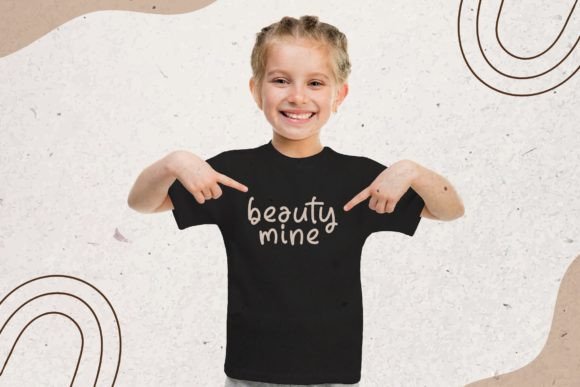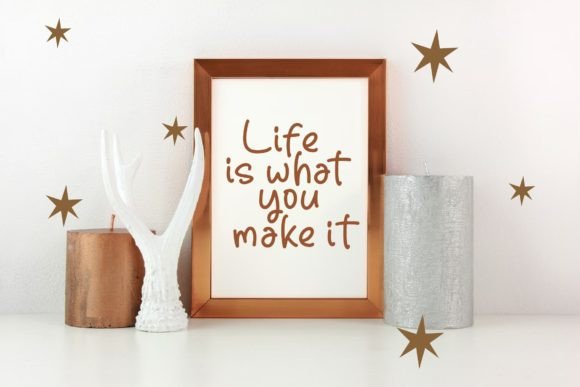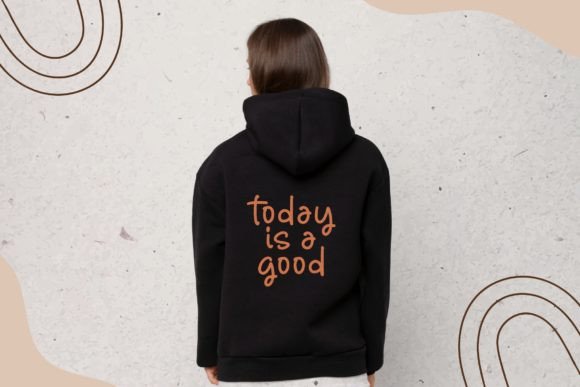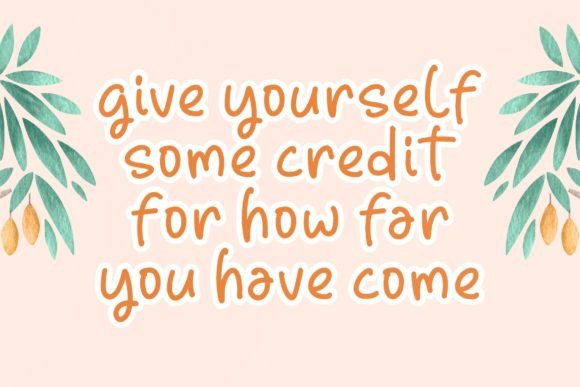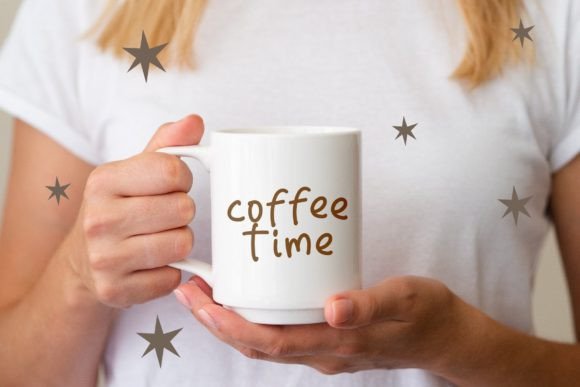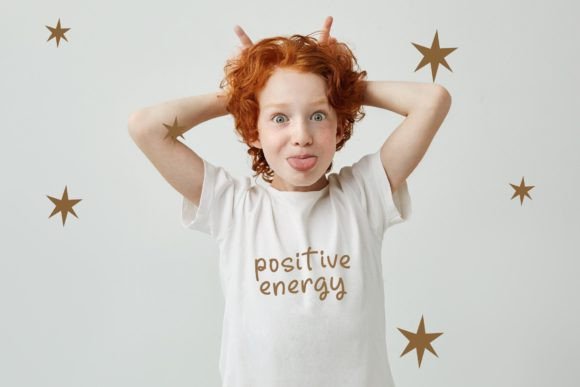
Fruits Mango Font: The Perfect Addition to Your Design Projects
Are you looking for a font that can add a touch of elegance and playfulness to your design projects? Look no further than Fruits Mango Font! This fun handwritten font is suitable for a wide range of projects, from logos and branding to homeware designs, product packaging, and more.
What is Fruits Mango Font?
Fruits Mango Font is a beautiful script font that is perfect for designers and crafters who want to add a personal touch to their work. The font is hand-drawn, giving it a unique and organic feel that is sure to capture the attention of your audience. With its elegant and flowing lines, Fruits Mango Font is ideal for projects that require a touch of sophistication and whimsy.
What Can I Use Fruits Mango Font For?
Fruits Mango Font is a versatile font that can be used for a wide range of projects, including:
- Logos and branding projects: Create a memorable and eye-catching logo for your business or brand with Fruits Mango Font.
- Homeware designs: Add a touch of elegance to your homeware designs, such as kitchen utensils, ceramics, and textiles.
- Product packaging: Make your product stand out on store shelves with beautiful and eye-catching packaging designed with Fruits Mango Font.
- Mugs and ceramics: Create personalized mugs, plates, and other ceramics with Fruits Mango Font.
- Quotes and posters: Add a touch of inspiration to your quotes and posters with Fruits Mango Font.
- Shopping bags: Design reusable shopping bags with Fruits Mango Font for a unique and eco-friendly look.
- T-shirts and apparel: Create custom t-shirts, hoodies, and other apparel with Fruits Mango Font.
- Book covers and journals: Design eye-catching book covers and journals with Fruits Mango Font.
- Name cards and invitation cards: Create personalized name cards and invitation cards with Fruits Mango Font.
- Greeting cards and stationery: Add a touch of elegance to your greeting cards and stationery with Fruits Mango Font.
- Labels and watermarks: Use Fruits Mango Font to create custom labels and watermarks for your products or photos.
- Special events: Create custom designs for special events, such as weddings, birthday parties, and anniversaries, with Fruits Mango Font.
Why Choose Fruits Mango Font?
There are many reasons why Fruits Mango Font is the perfect choice for your design projects. Here are just a few:
- Unique and eye-catching: Fruits Mango Font is a one-of-a-kind font that is sure to capture the attention of your audience.
- Versatile: Fruits Mango Font can be used for a wide range of projects, from logos and branding to homeware designs and product packaging.
- Elegant and playful: Fruits Mango Font has a unique blend of elegance and playfulness that makes it perfect for projects that require a touch of sophistication and whimsy.
Tips and Tricks for Using Fruits Mango Font
Here are a few tips and tricks to keep in mind when using Fruits Mango Font:
- Experiment with different colors: Fruits Mango Font looks great in a variety of colors, so don’t be afraid to experiment and find the perfect color for your project.
- Play with font sizes: Fruits Mango Font can be used at a variety of font sizes, from large and bold to small and delicate.
- Combine with other fonts: Fruits Mango Font pairs well with other fonts, so consider combining it with a sans-serif font for a unique and interesting look.